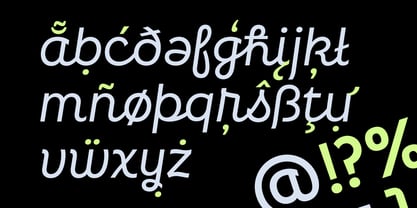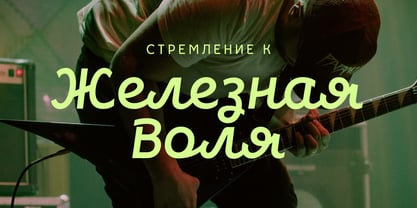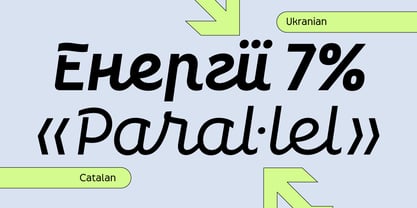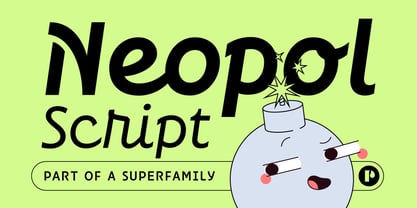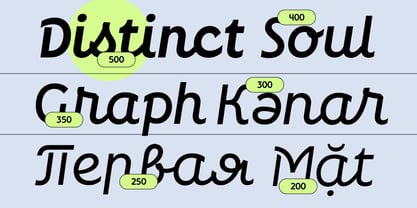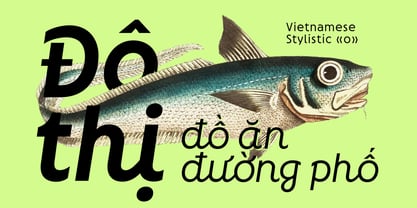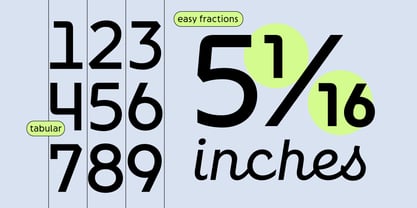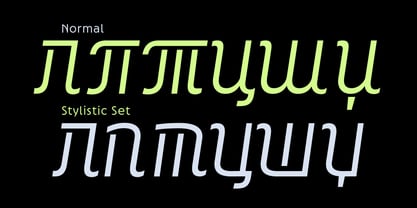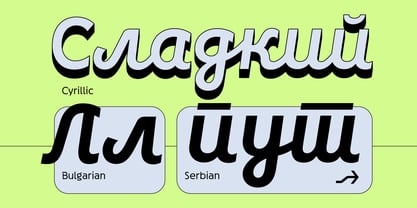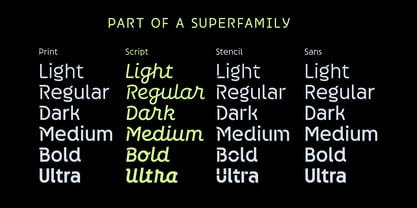
Neopol Script
by Pedroglifos
The Neopol Script Font Family was designed by Pedro Medina-Leandry and published by Pedroglifos. Neopol Script contains 6 styles and family package options. More about this family
Like a great city inhabited by diverse voices, Neopol superfamily comprises three styles that reflect distinct aspects of metropolitan life. Each style is interwoven with the others through subtle influences such as brushstrokes and stencil-like character bridges. Its broad expressive range spans from retro-modern and industrial to artisanal. Furthermore, as a cosmopolitan font, it boasts extended language support for both Latin and Cyrillic scripts. While each of the three styles stands out on its own, the practical beauty of this superfamily lies in their unity and interdependent relationship. The Cyrillic expansion was possible thanks to Tural Alisoy's collaboration with (TAFT Foundry).
Designers: Pedro Medina-Leandry
Foundry: Pedroglifos
Neopol Script